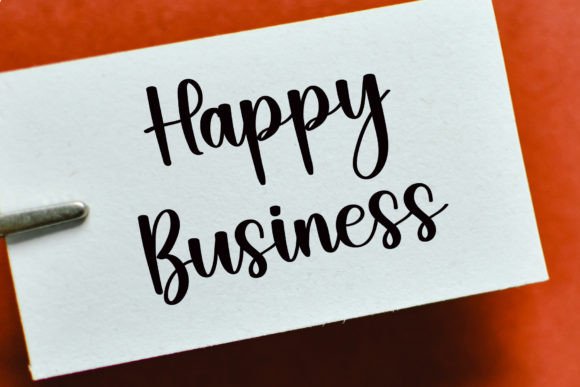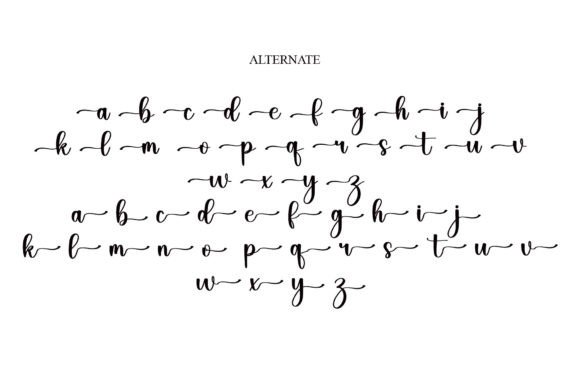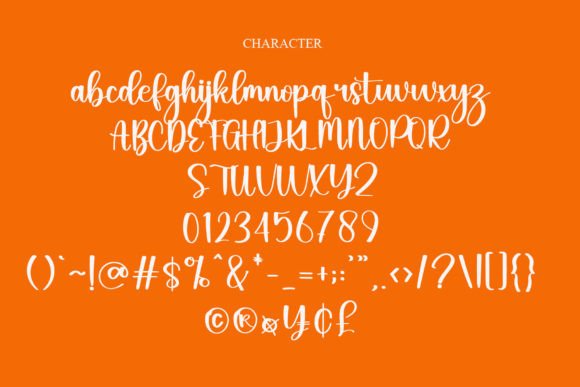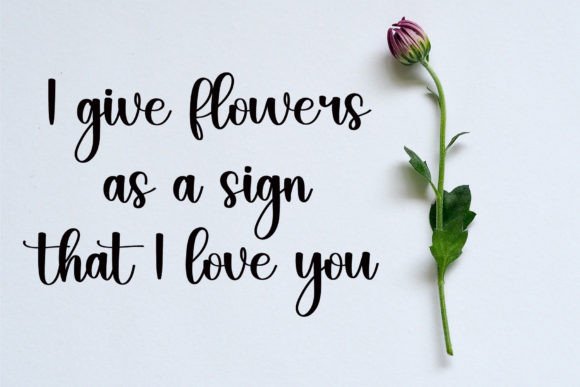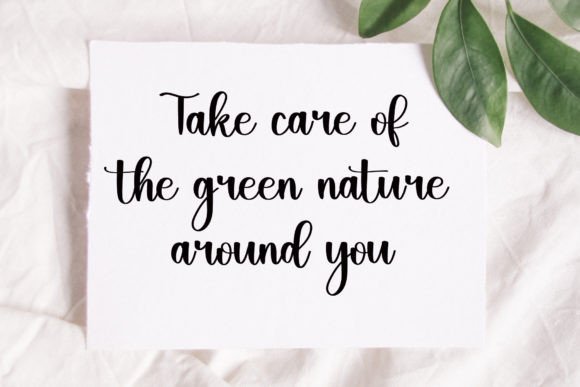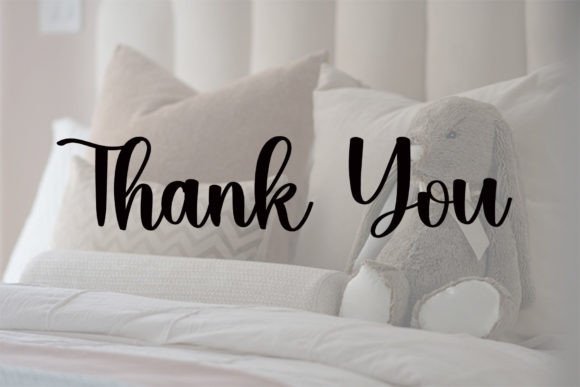
Introducing Absolute Font: The Enchanting Handwritten Script to Elevate Your Designs
Are you on the hunt for a font that can add a touch of romance and elegance to your designs? Look no further than Absolute Font, a beautiful handwritten script that is sure to captivate your audience. With its versatile nature, Absolute Font can be used across a wide range of applications, from greeting cards and invitations to headlines and branding materials.
The Charm of Absolute Font
Absolute Font is an enchanting handwritten font that boasts a unique and distinctive character. Its elegant strokes and flowing curves give it a romantic feel that is perfect for designers and crafters looking to add a touch of whimsy to their work. Whether you’re creating a wedding invitation, a greeting card, or a social media graphic, Absolute Font is guaranteed to make your design stand out.
One of the best things about Absolute Font is its versatility. This script font can be used in a variety of contexts, from formal to informal, and can be paired with a range of other fonts to create a unique and eye-catching design. Here are just a few ideas for using Absolute Font:
- Greeting Cards: Add a personal touch to your greeting cards with Absolute Font. Whether you’re creating a birthday card, a wedding card, or a holiday card, this font is sure to make your design special.
- Headlines: Use Absolute Font to create stunning headlines for your blog posts, articles, or social media graphics. Its elegant curves and flowing strokes make it perfect for grabbing attention and drawing readers in.
- Branding: Absolute Font is also a great choice for branding materials, such as logos, business cards, and letterheads. Its unique character will help your brand stand out and leave a lasting impression on your customers.
- Invitations: Create beautiful invitations for special occasions, such as weddings, baby showers, or graduations, with Absolute Font. Its romantic feel and elegant strokes make it perfect for formal and informal events.
Why Choose Absolute Font?
So why choose Absolute Font over other fonts? Here are just a few reasons why designers and crafters love this enchanting handwritten script:
- Unique Character: Absolute Font has a unique and distinctive character that will set your designs apart from the rest.
- Romantic Feel: This font has a romantic feel that is perfect for adding a touch of elegance and whimsy to your designs.
- Versatility: Absolute Font can be used across a wide range of applications, from formal to informal.
- Elegant Strokes: The elegant strokes and flowing curves of Absolute Font make it perfect for creating beautiful and eye-catching designs.
Tips for Using Absolute Font
Here are a few tips for getting the most out of Absolute Font:
- Pair with Other Fonts: Experiment with pairing Absolute Font with other fonts to create a unique and eye-catching design.
- Use for Headlines: Use Absolute Font for headlines to grab attention and draw readers in.
- Add a Personal Touch: Use Absolute Font to add a personal touch to your designs, such as in greeting cards or invitations.
Absolute Font is a beautiful and enchanting handwritten script that is sure to elevate your designs. With its versatile nature, romantic feel, and elegant strokes, this font is perfect for designers and crafters looking to add a touch of whimsy to their work. Whether you’re creating greeting cards, headlines, or branding materials, Absolute Font is guaranteed to make your design stand out. So why wait? Download Absolute Font today and start creating stunning designs that will leave a lasting impression on your audience.